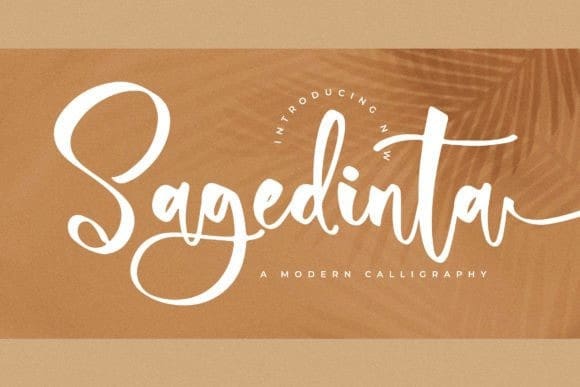
Sagedinta Script Font
Sagedinta Script Font – Modern Calligraphy suitable for any projects such as logos, branding projects, homeware designs, product packaging, mugs, quotes, posters, shopping bags, t-shirts, book covers, name cards, invitation cards, greeting cards, labels, photography, watermark, special events, and all your other lovely projects that need a beautiful script taste.